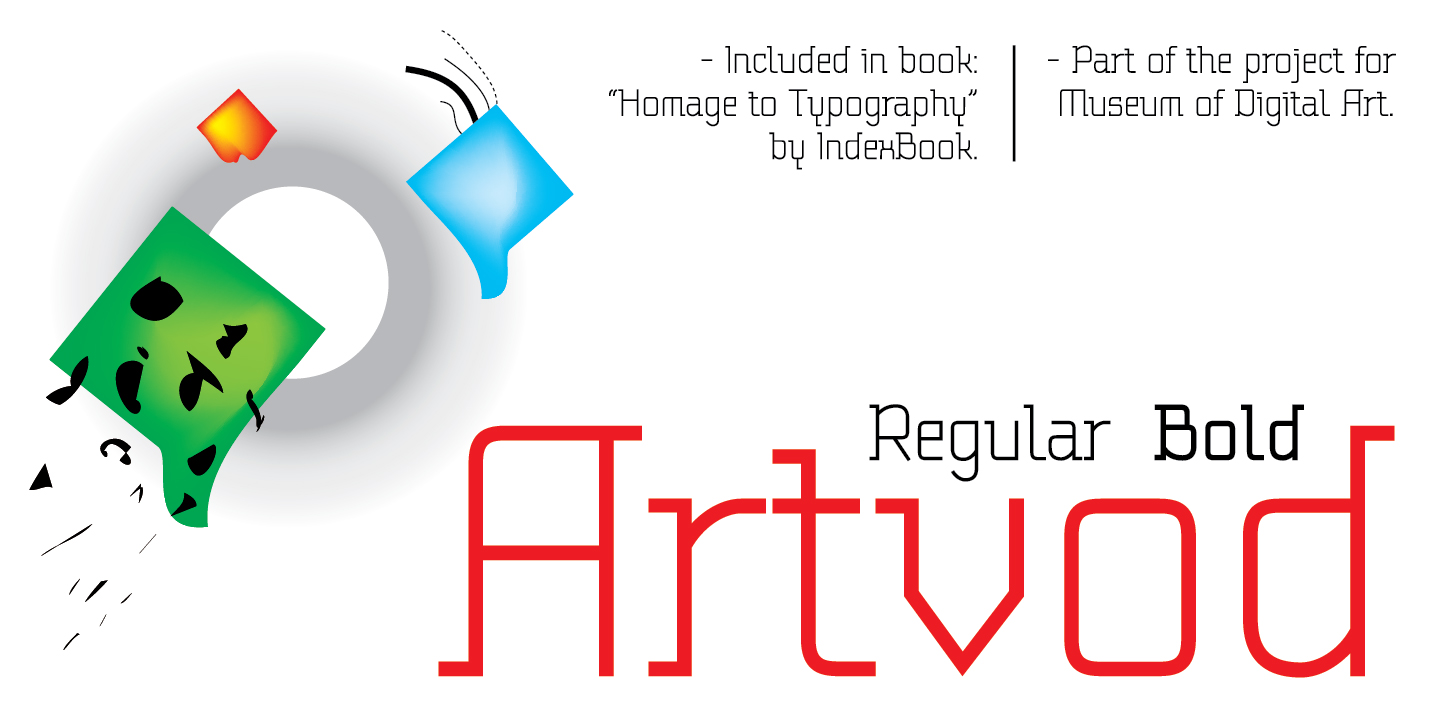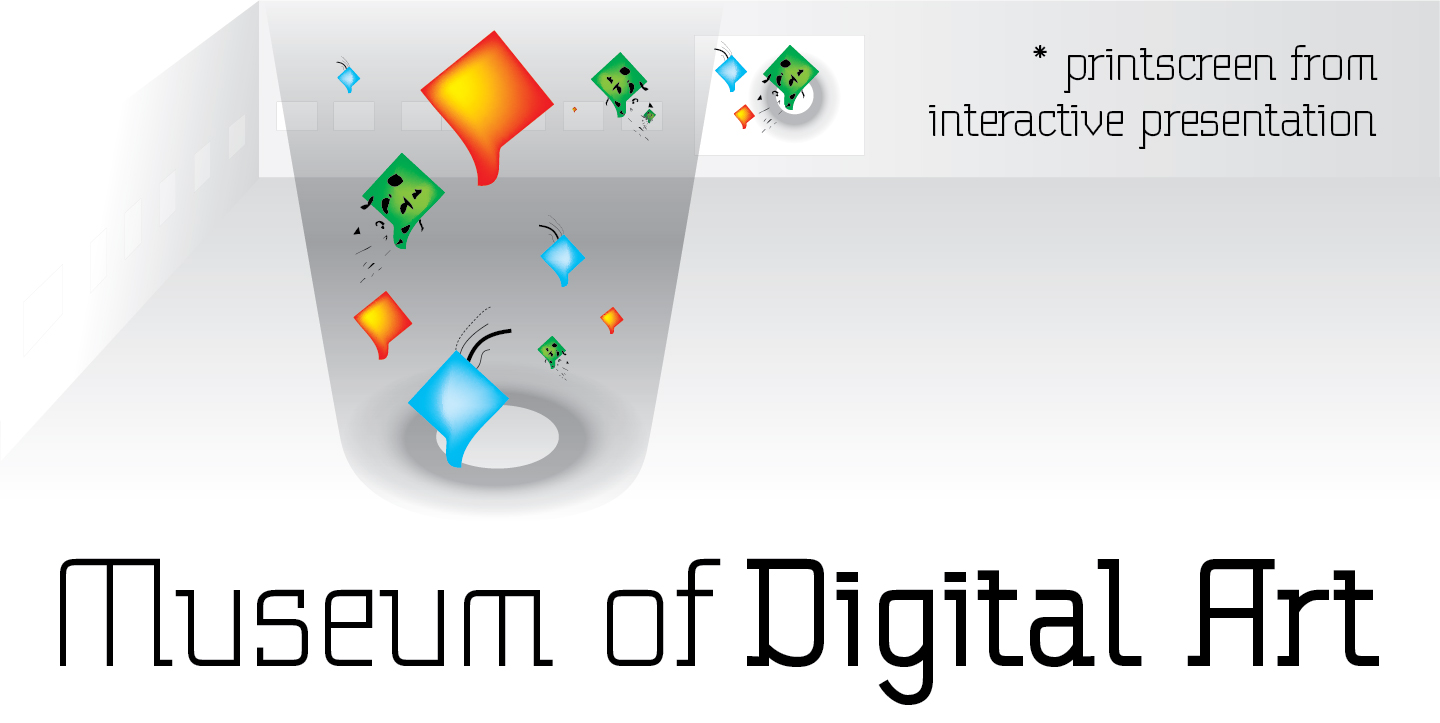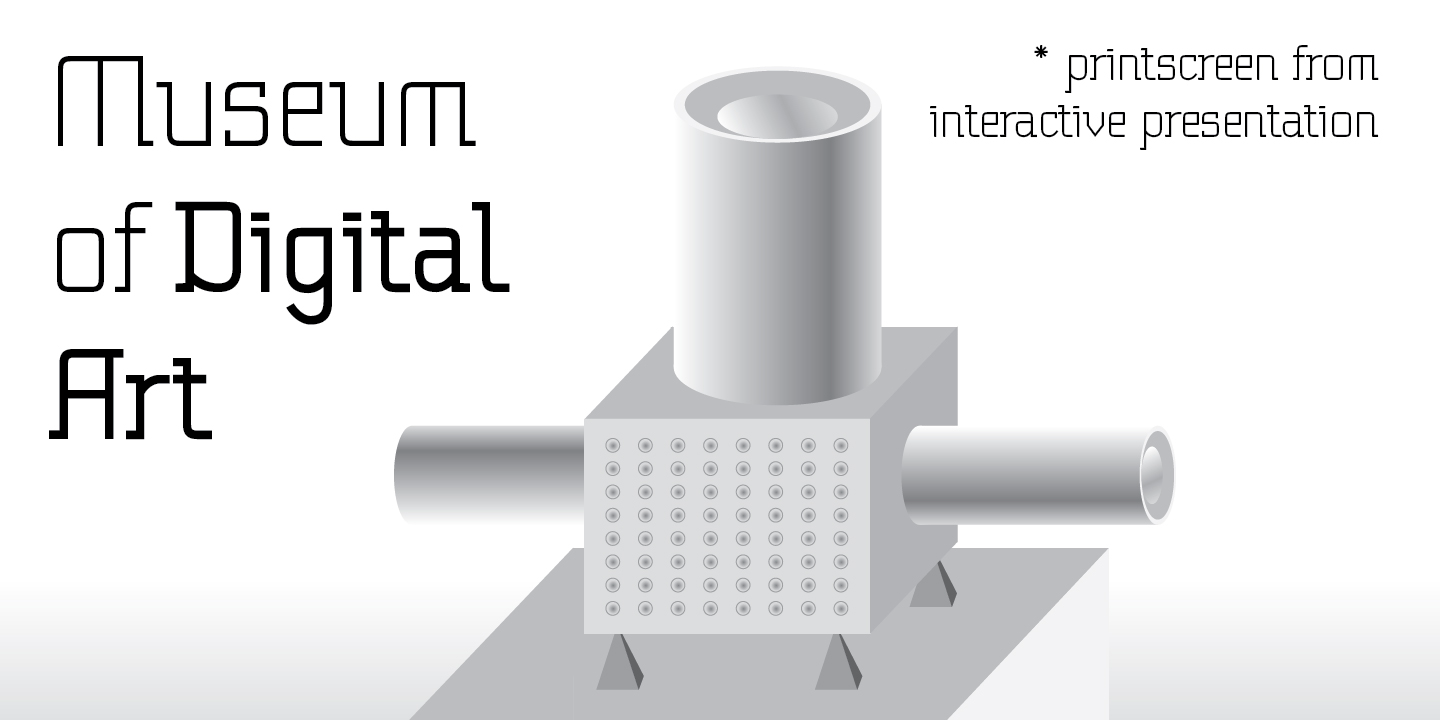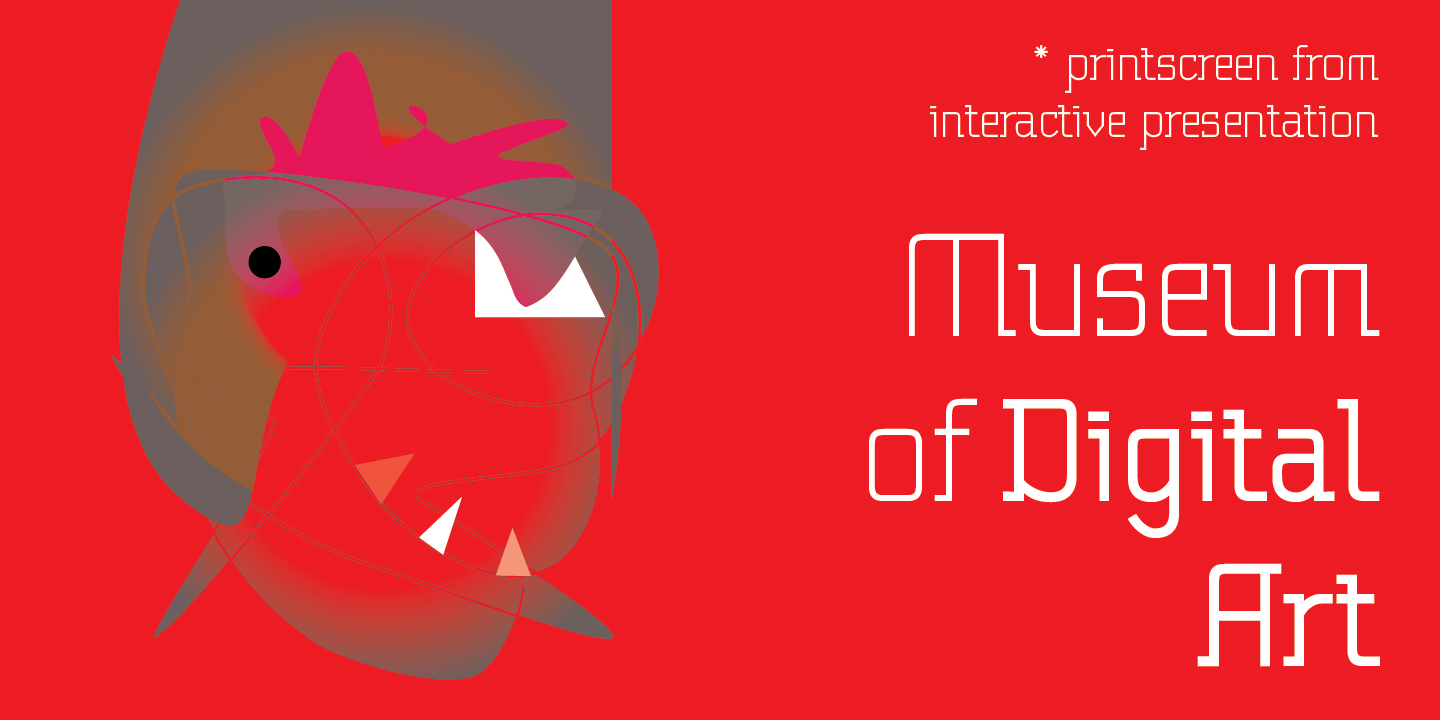
The Artvod font family is a graduate project of Dusan Jelesijevic on the topic Museum of Digital Art. The whole project included a 15 minute interactive presentation through building of Artvod Museum, consisting of 15 posters and the font in two weights (Regular and Bold). The Artvod font family also appears in IndexBook's book Homage of Typography by Pedro Guitton.